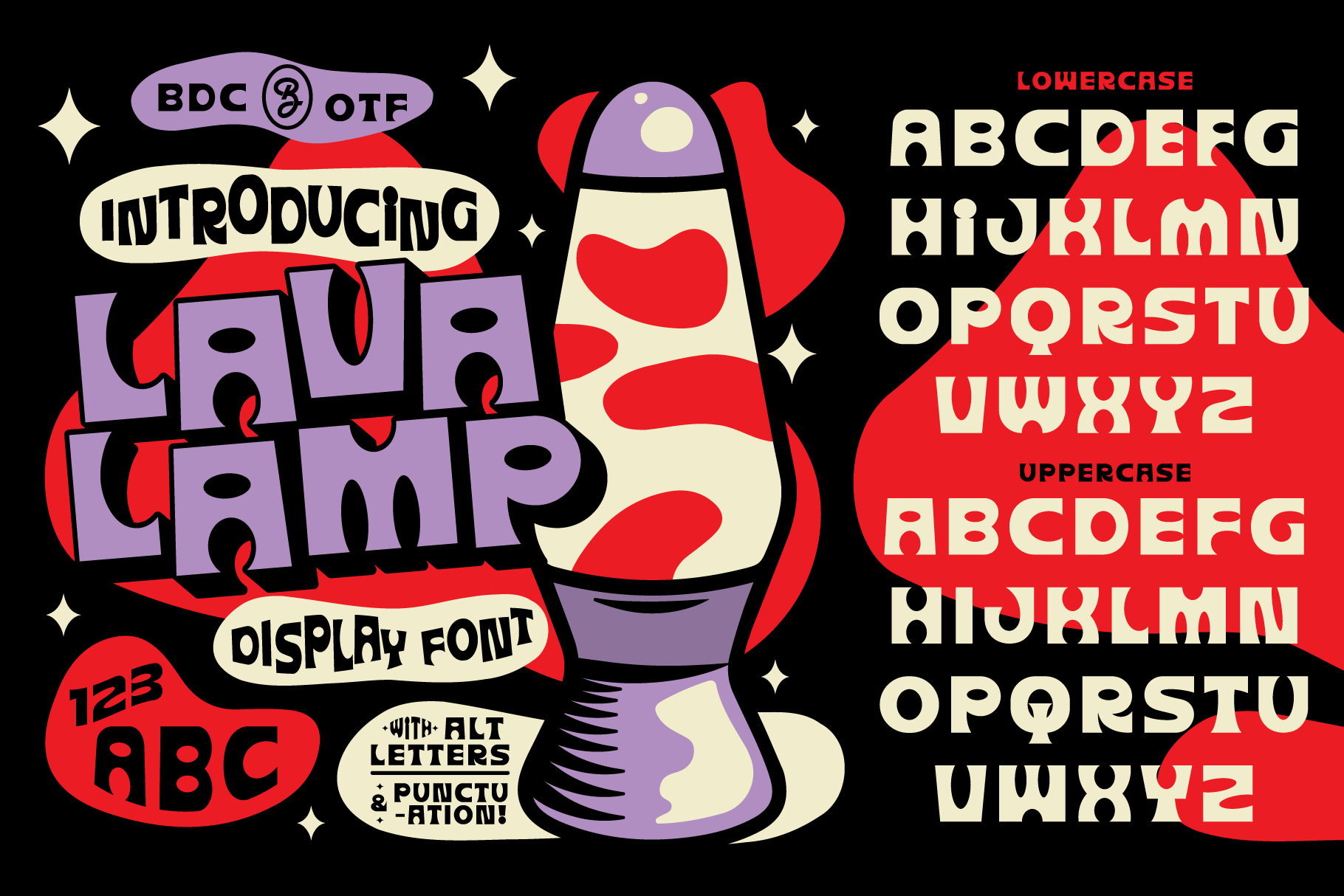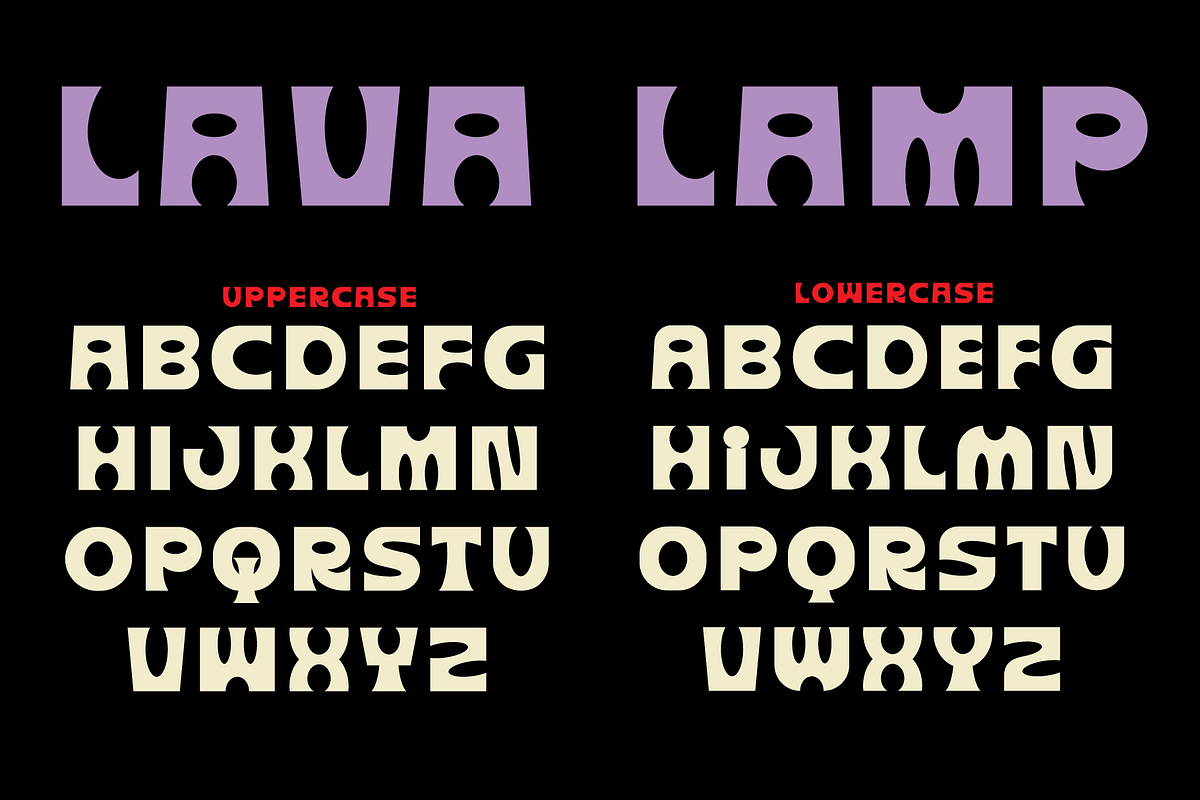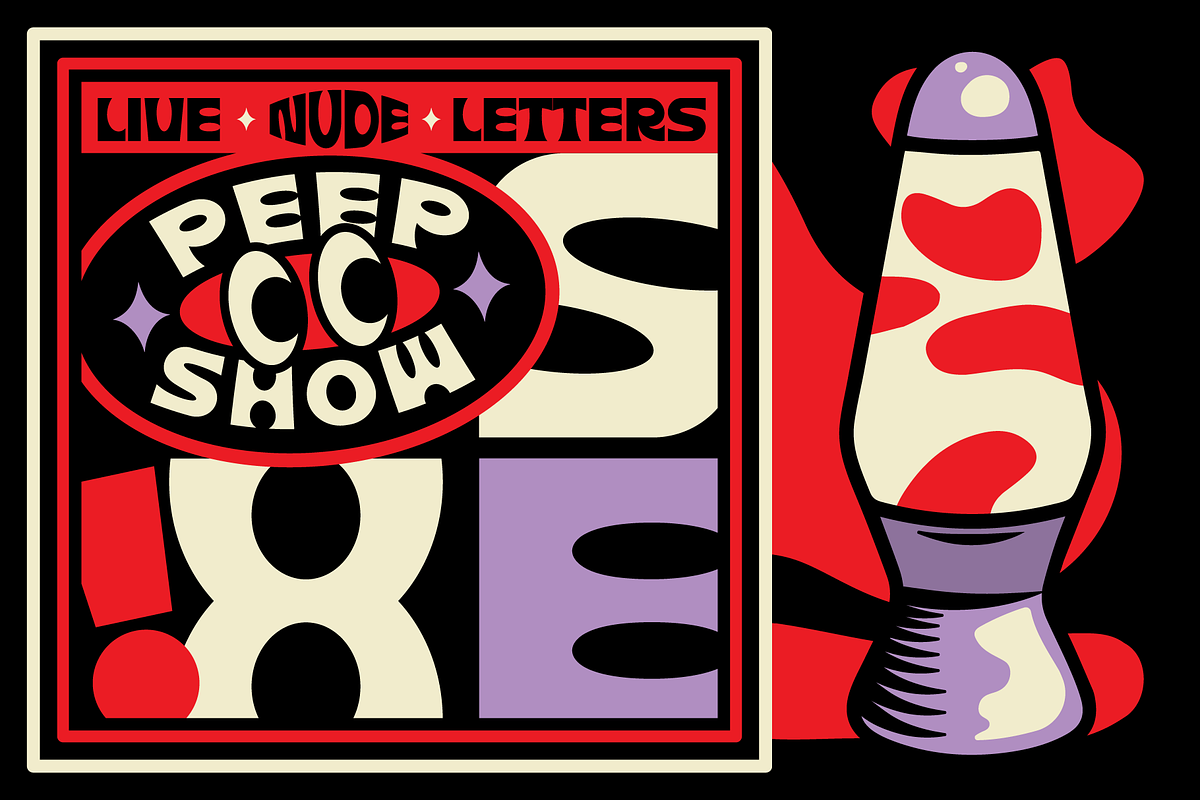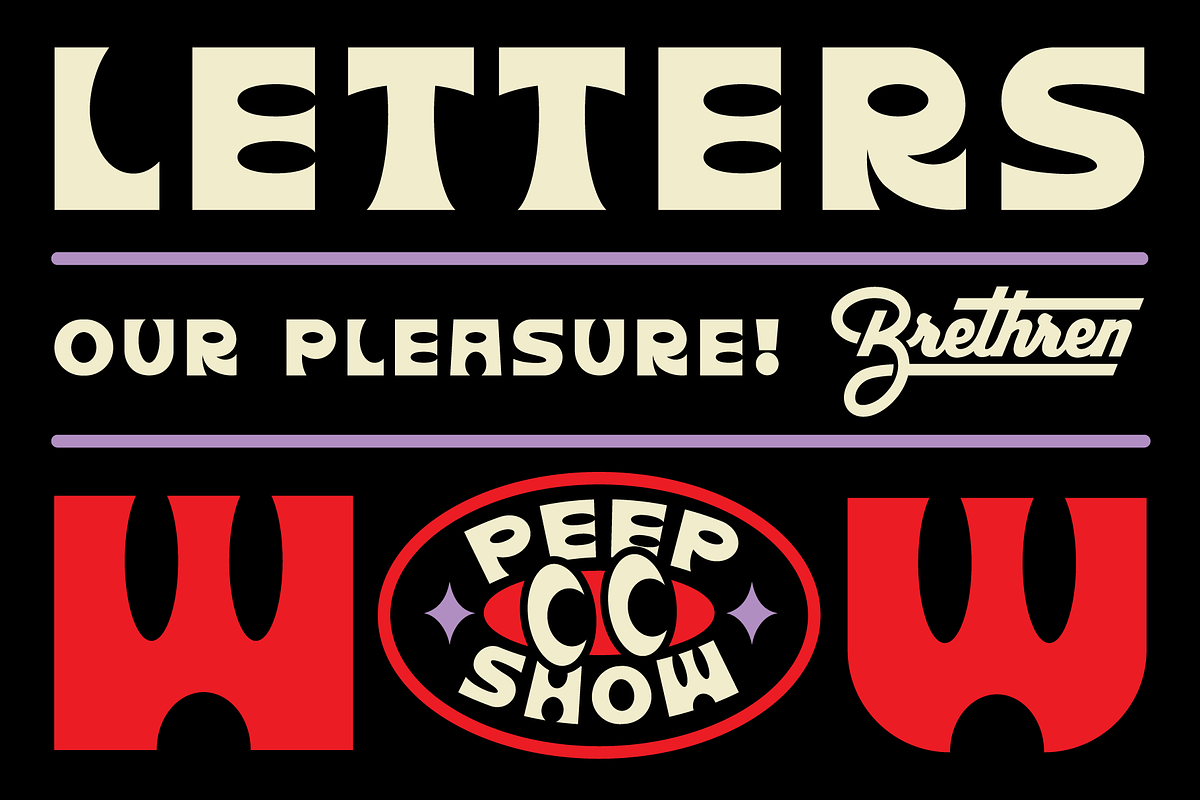
Lava Lamp Display Font
Lava Lamp is a funky display font with circular counters, giving it a unique feel. Built with alternate letters that can be used with the caps lock on and off and comes equipped with numbers and punctuation. This font is versatile and fun, perfect for your next gig poster, t-shirt and possibly hip branding project.